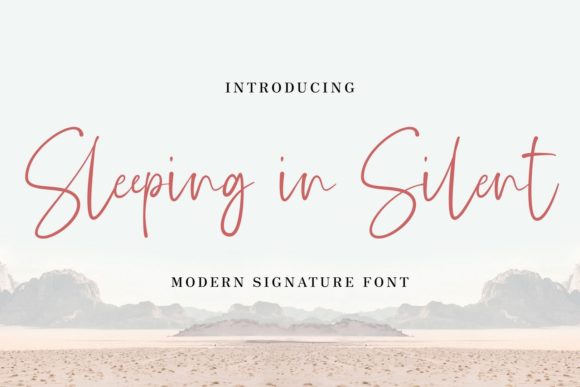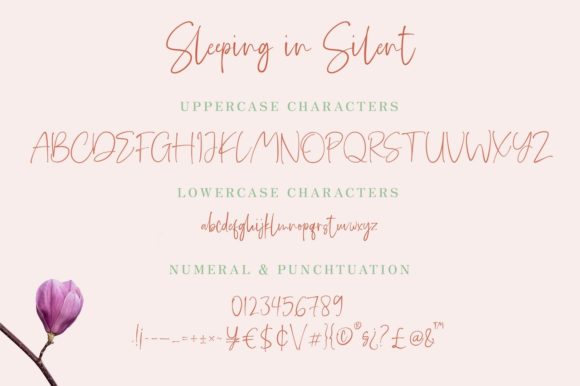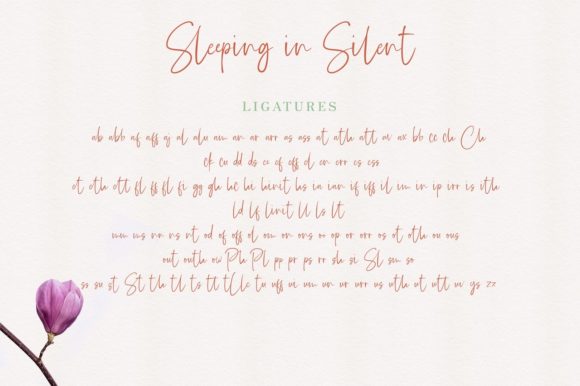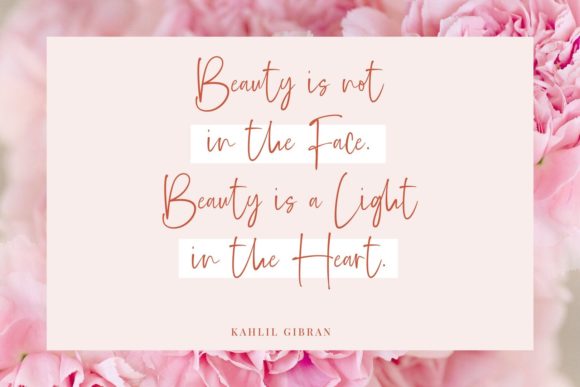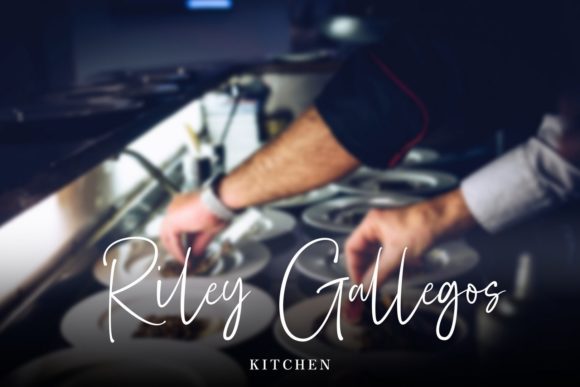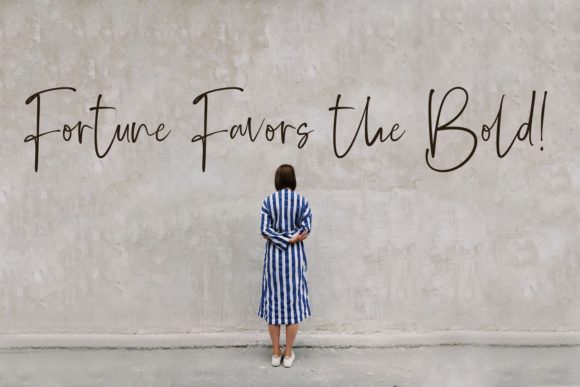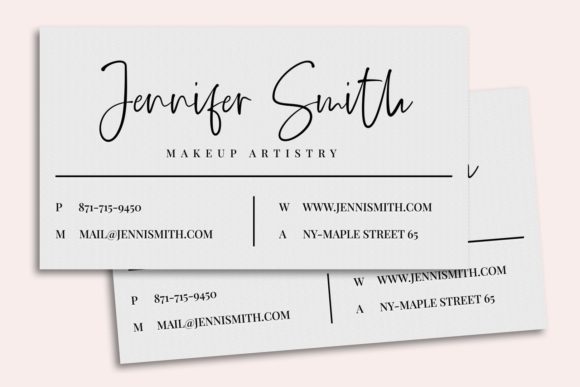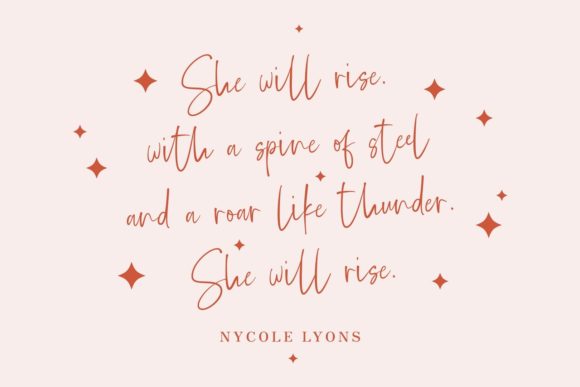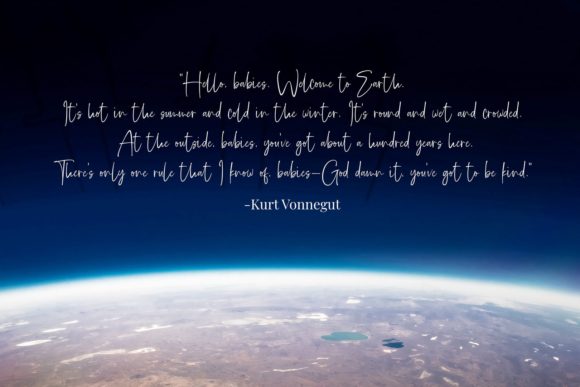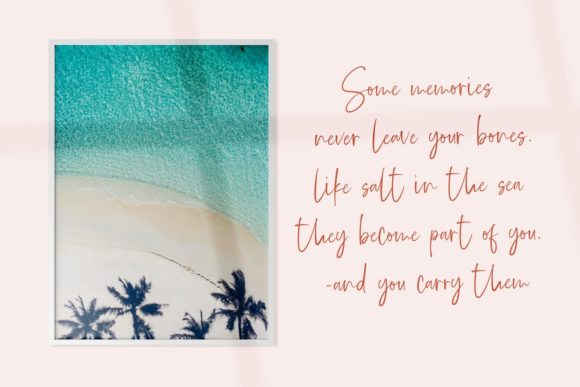
Sleeping in Silent Font
About Sleeping in Silent Font
“Sleeping in Silent” is a stylish and fashion-forward script font that is tailor-made for a wide range of branding projects, giving them an extra edge of sophistication and creativity. This font is a versatile choice that can elevate various design contexts with its unique and captivating style.
When used in logos, “Sleeping in Silent” adds a touch of elegance and modernity. Its stylish and fashionable design can communicate your brand’s personality, making it an ideal choice for businesses looking to convey a sense of sophistication and creativity. The flowing and intricate characters of the font create a distinctive and memorable logo that stands out from the crowd.
For t-shirt printing and apparel branding, “Sleeping in Silent” offers a trendy and eye-catching option. Its chic and stylish appearance lends itself well to creating unique and appealing designs that resonate with fashion-conscious audiences. Whether it’s quotes, graphics, or brand names, this font adds an element of visual interest that enhances the overall design.
Creative products also benefit from the font’s versatility. From product packaging to labels and tags, “Sleeping in Silent” contributes to the visual appeal of your items. Its fashionable and stylish characters can elevate the perceived value of your products, making them more appealing to potential customers.
Moreover, the font’s ability to look extraordinary in a variety of contexts makes it suitable for diverse design projects. Whether it’s social media posts, promotional materials, or event invitations, “Sleeping in Silent” adds a touch of sophistication that resonates with your target audience.
In summary, “Sleeping in Silent” is a stylish and fashionable script font that enhances branding projects with its elegance and creativity. Its unique design elements make it a great choice for logos, t-shirt printing, creative products, and various other contexts. With its ability to look extraordinary across different applications, this font offers versatility and visual impact that can contribute to the success of your design endeavors.